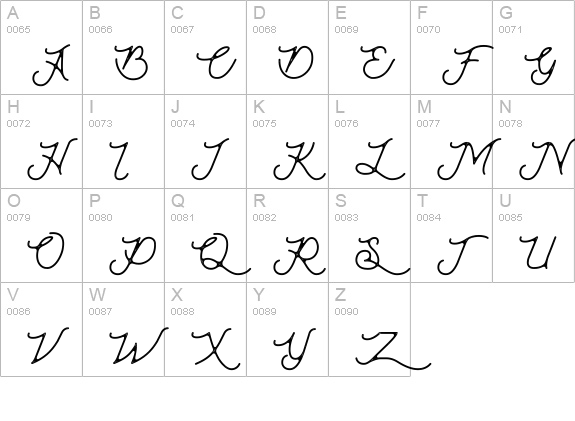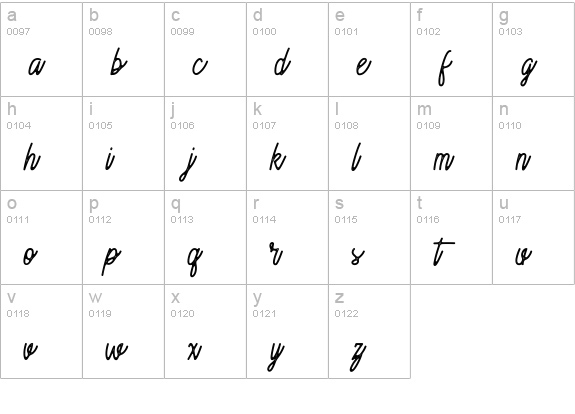
Moonchrome Script Font Details
Moonchrome Script is a free for personal use font in the Script > Old School category, designed by madeDeduk. It has been downloaded 102 times and is available for Windows, Mac and Linux.
Moonchrome Script font is a stunning and sophisticated typeface that brings elegance and flair to any design project. With its sleek and modern look, this font is perfect for creating eye-catching logos, branding materials, invitations, and more. The flowing script style of Moonchrome Script adds a touch of class and sophistication to any text.